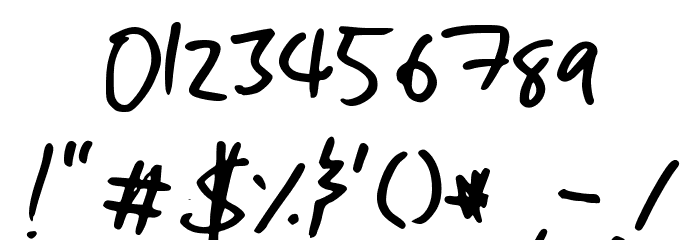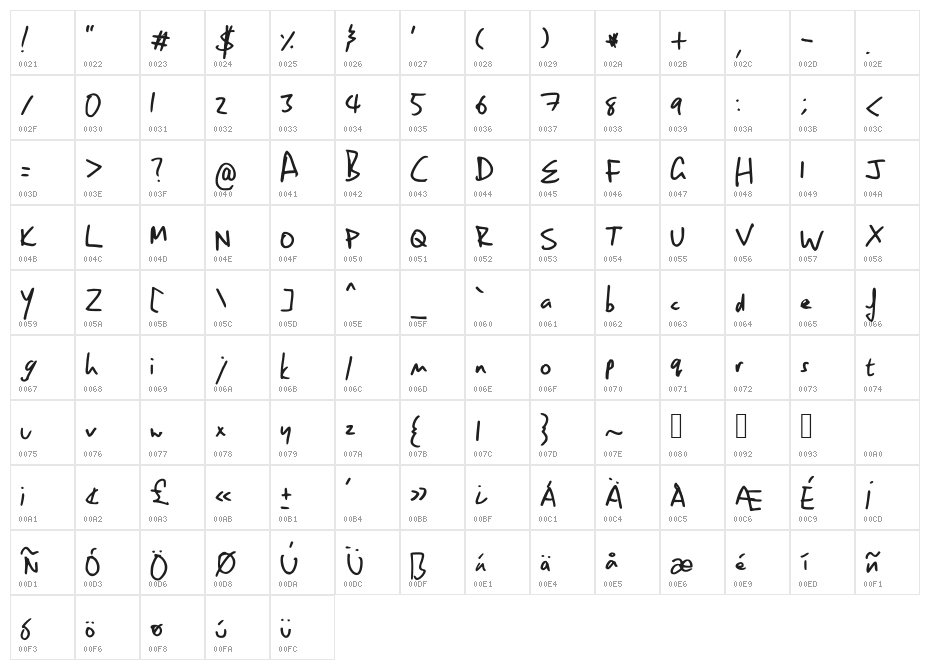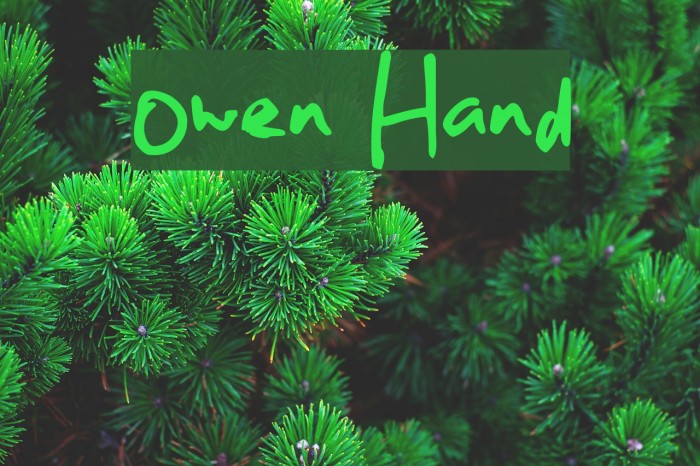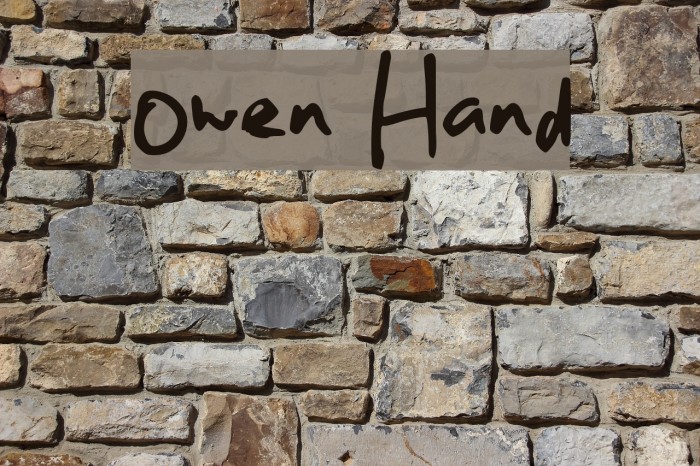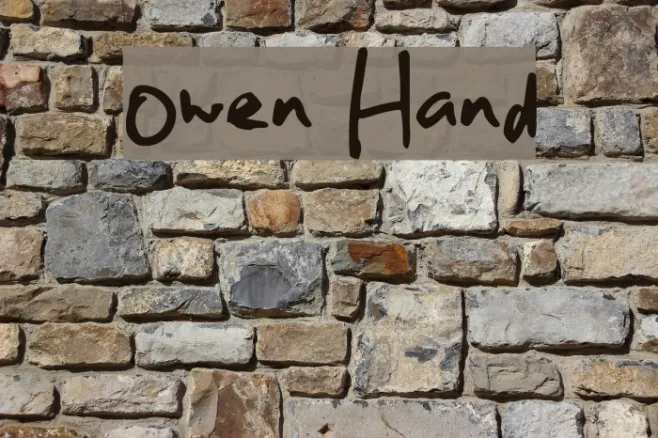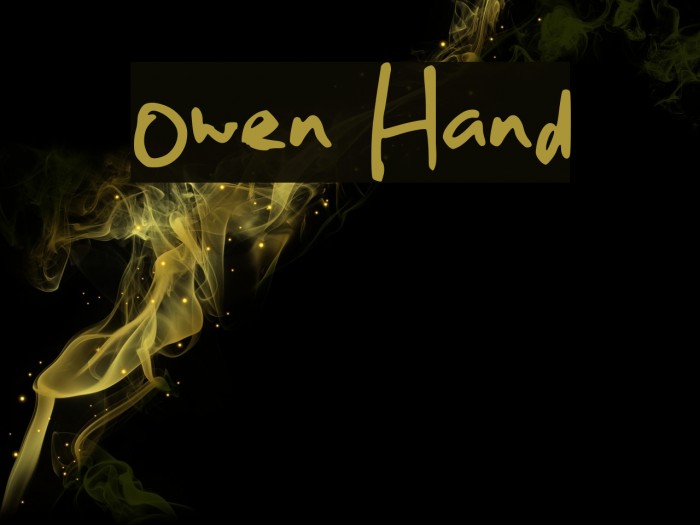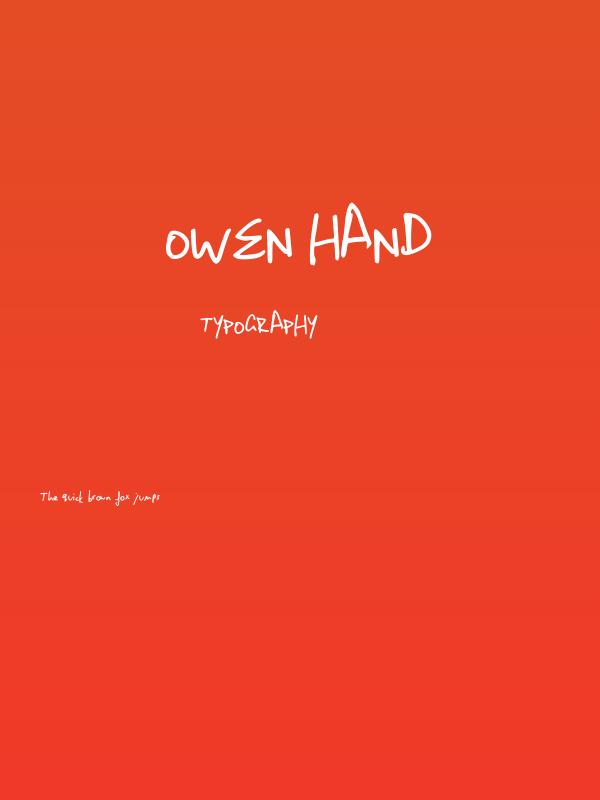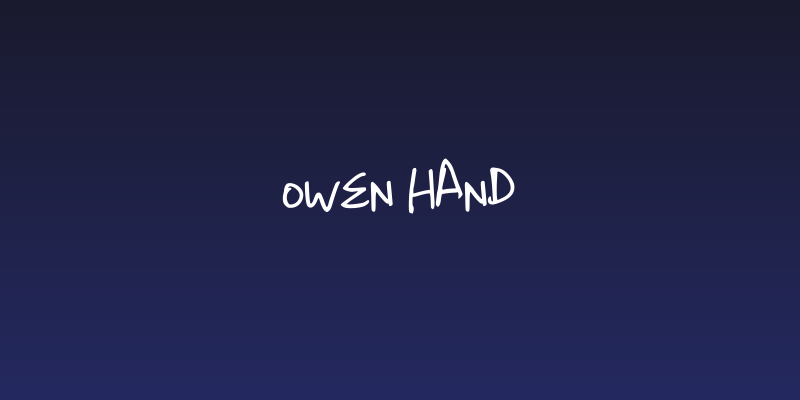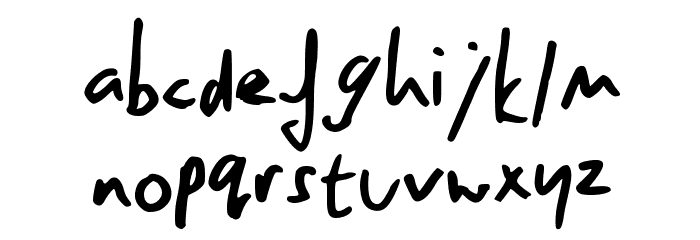
Owen Hand Font
Owen Hand Description
This font exudes a casual and friendly handwritten style, characterized by its fluid and slightly irregular strokes that mimic natural handwriting. The letters are slightly tilted, adding a dynamic and personal touch to the text. The uppercase and lowercase letters maintain a consistent style, with rounded edges and a playful appearance. The numerals and special characters follow the same informal aesthetic, making the font versatile for various creative applications. Its organic flow and approachable look make it ideal for projects that require a personal or informal tone.